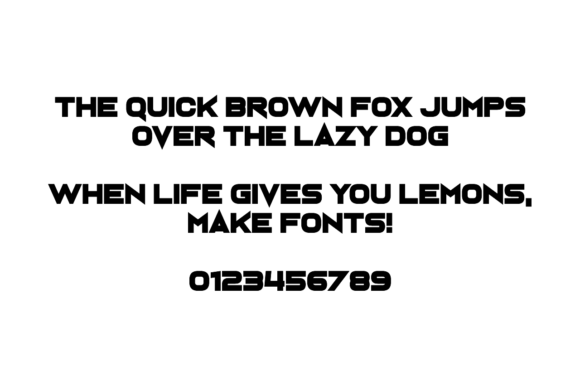
Introduction to Neuterous Font
Have you ever been working on a creative project and suddenly, the perfect font pops into your head? For many designers, this moment is a game-changer. It’s the spark that brings an idea to life and sets the tone for the entire project. For us, that moment came when we stumbled upon the Neuterous Font – a thick, spiky font that’s perfect for posters, album covers, and any other project that needs a bold, modern touch.
The Neuterous Font is more than just a design resource – it’s a high-quality asset that can elevate any creative project. Its transparent background makes it easy to overlay on top of images, while its bold lines and spikes add a touch of edginess that’s hard to find in other fonts. Whether you’re working on a techno music poster, a video game title, or a tech industry project, the Neuterous Font is a valuable addition to your design toolkit.
Key Features of Neuterous Font
- Unique sans-serif font style with a transparent background, ideal for overlaying on images or videos.
- Perfect for use in graphic design, branding, and digital art projects, offering a clean and modern aesthetic.
- Designed to be highly legible, making it an excellent choice for body text and headings in creative projects.
Honest Review: Neuterous Font
As a designer, I’m always on the lookout for high-quality design resources to elevate my creative projects. Recently, I had the chance to work with the Neuterous Font, and I must say, it’s been a game-changer.
Here are some things that work well with the Neuterous Font: ✨
- Customizable and versatile design: The font is incredibly flexible and can be used for a wide range of creative projects, from digital designs to print materials.
- High-quality design: The font’s design is sleek, modern, and high-quality, making it perfect for any professional project.
However, there are some limitations to consider: ⚠️
Overall, I’m thoroughly impressed with the Neuterous Font. Its high-quality design and versatility make it an excellent addition to any designer’s toolkit. While it may have some limitations, the benefits far outweigh the drawbacks. I highly recommend giving it a try, especially since it’s free to download!
Tips for Getting the Most Out of Neuterous Font
Use the Neuterous Font in conjunction with other design elements to create a cohesive and visually appealing design.
Experiment with different font sizes, colors, and styles to achieve the desired effect.
The Neuterous Font is perfect for creative projects such as:
Infographics
Brochures
Posters
Business cards